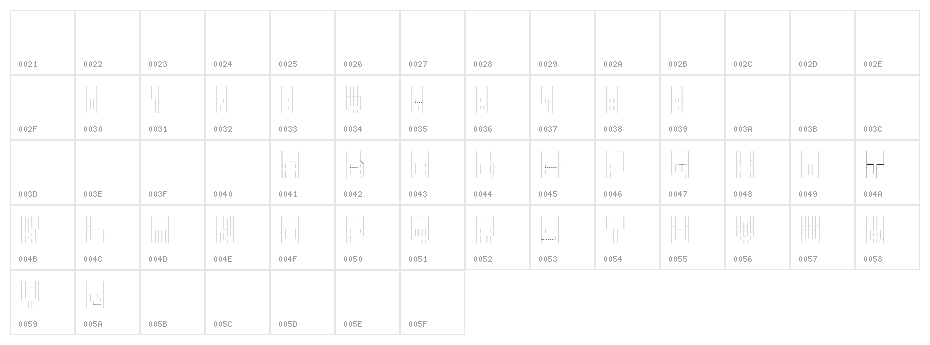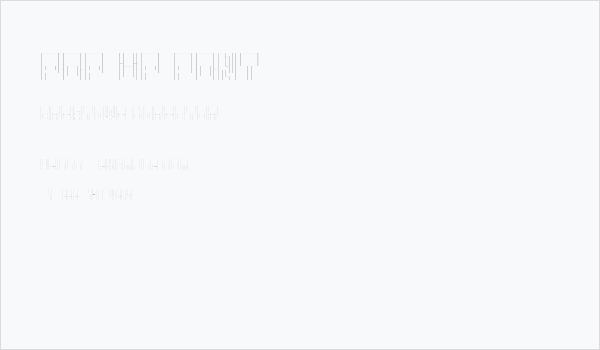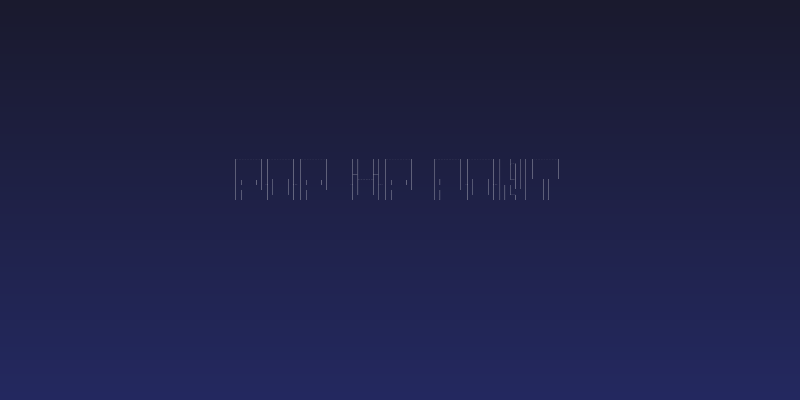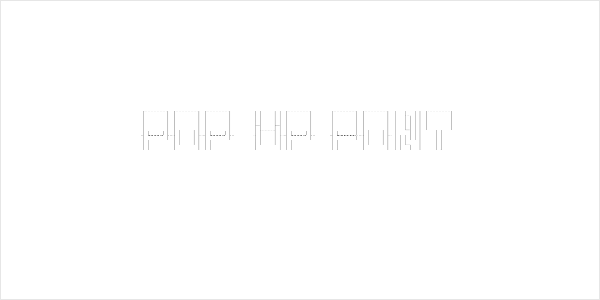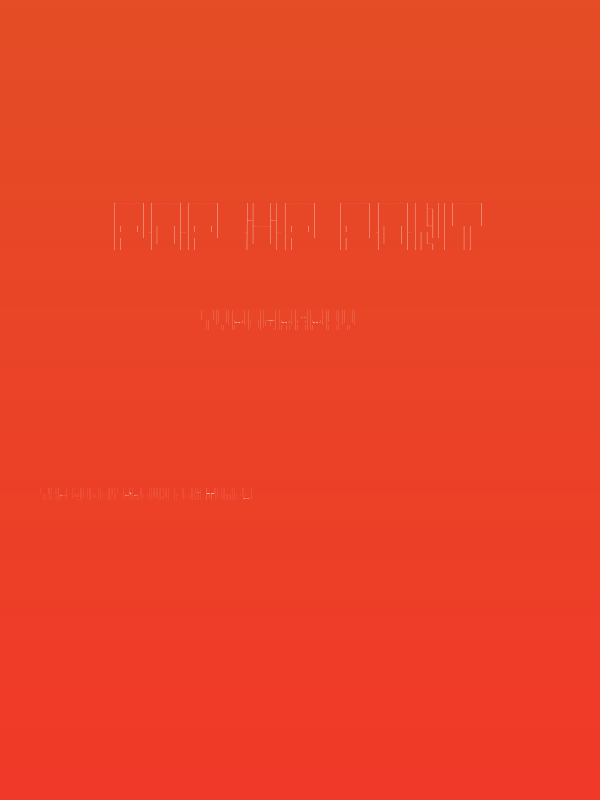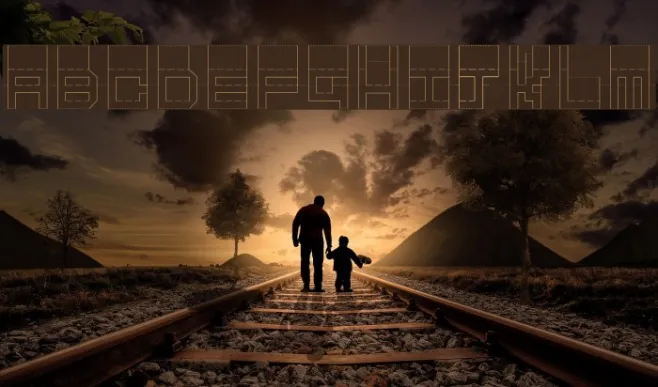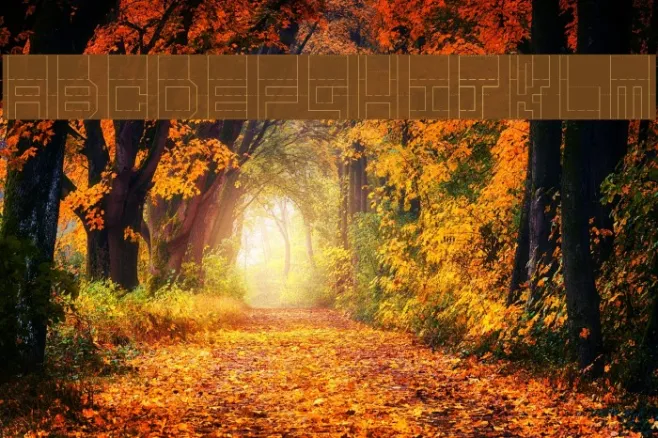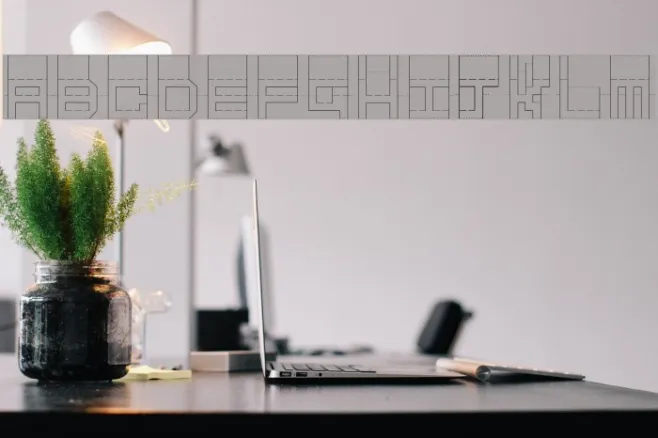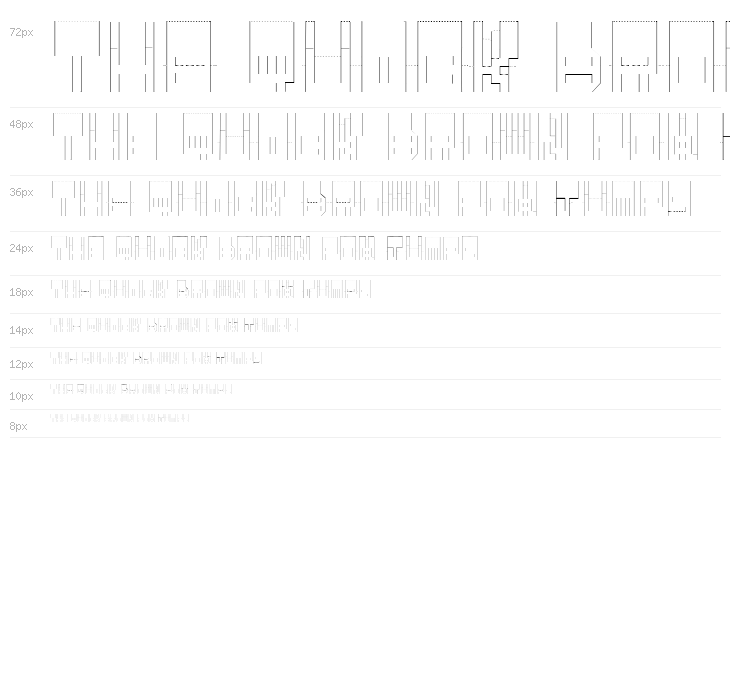
pop-up font Font
pop-up font Description
This font features a unique, geometric design that mimics the appearance of pop-up structures. Each character is constructed with a series of lines and angles that create a three-dimensional effect, reminiscent of architectural blueprints. The uppercase and lowercase letters maintain a consistent style, with a focus on straight lines and right angles, giving the font a modern and technical appearance. The numerals and special characters follow the same design principles, ensuring uniformity across all glyphs. This font's distinct style makes it stand out, offering a visually engaging experience.